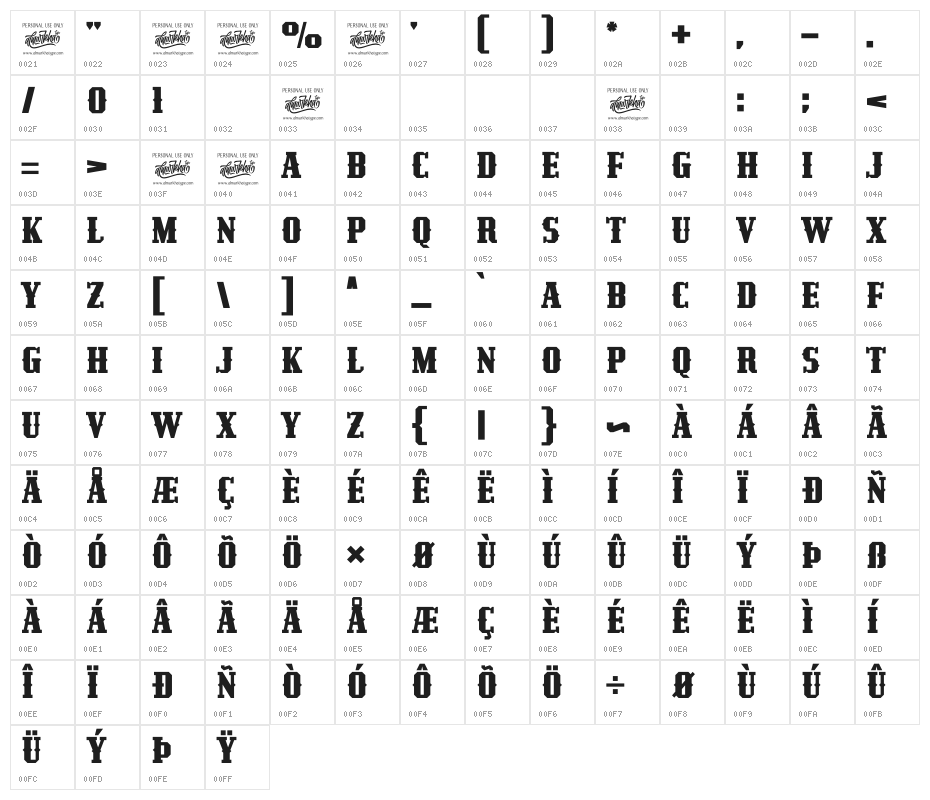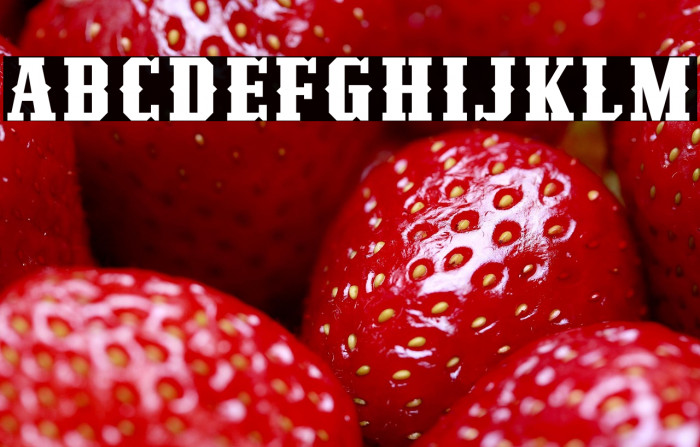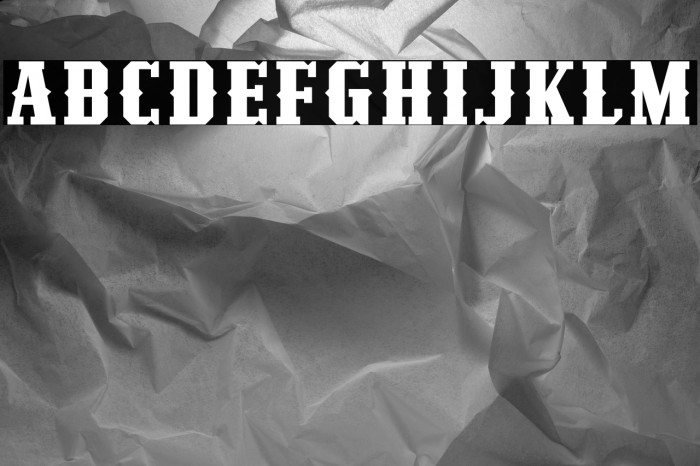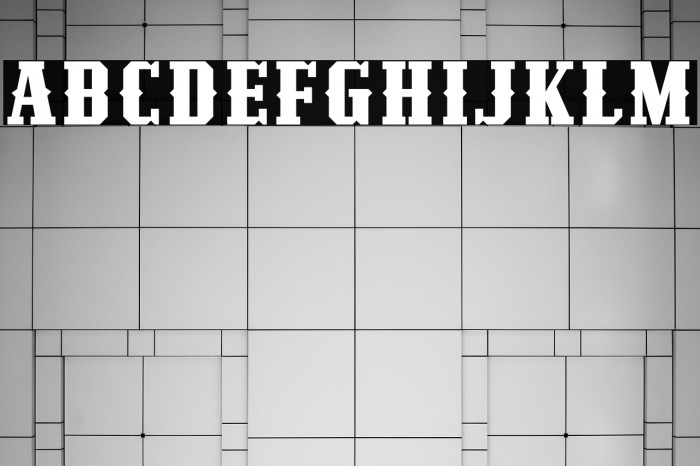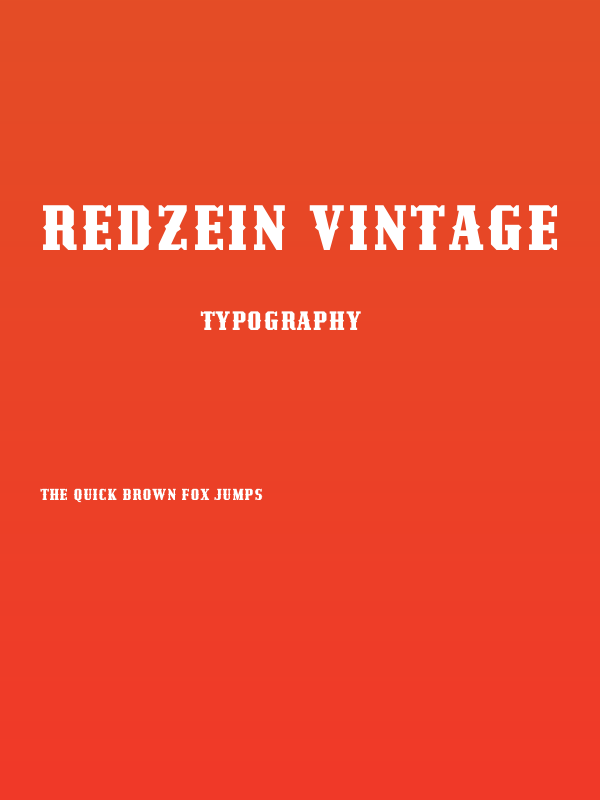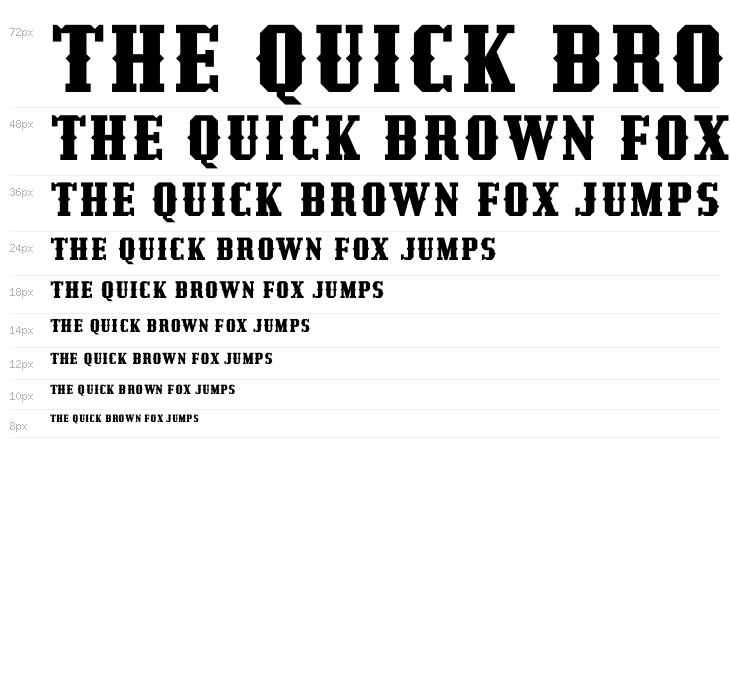
Redzein Vintage Font
Redzein Vintage Description
This font features a bold and striking design with a vintage flair, characterized by its strong, angular serifs and thick strokes. The uppercase letters are uniform in height, creating a cohesive and structured appearance. The font's geometric shapes and sharp edges give it a commanding presence, making it ideal for attention-grabbing headlines or titles. The numbers and special characters maintain the same bold style, ensuring consistency across all text elements. Its distinct style is reminiscent of old-school posters and signage, offering a nostalgic yet timeless appeal.
| Proposed Projects | Ideal for vintage-themed posters, logos, branding, and signage that require a bold and impactful look. |